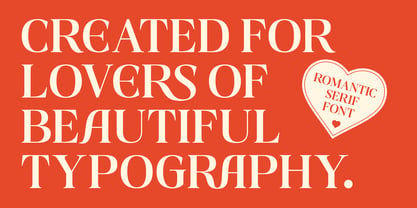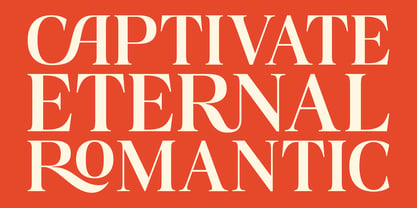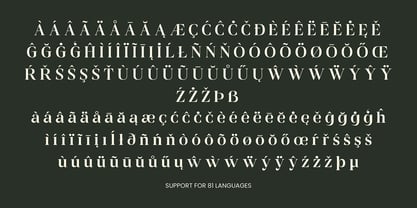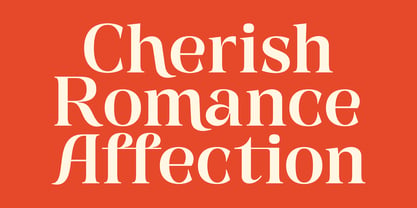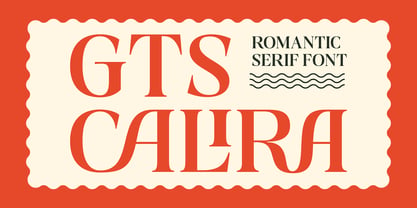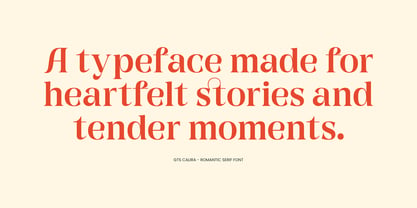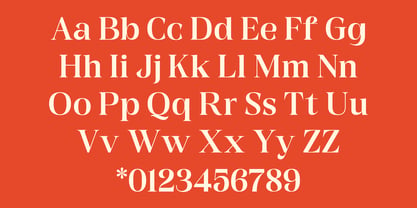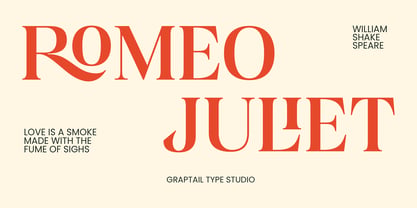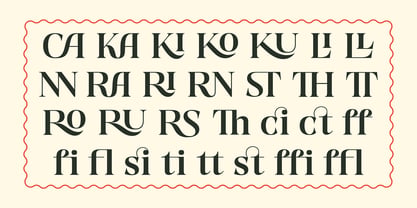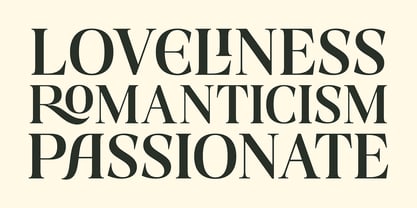
Calira
by Graptail
The Calira Font Family was designed by Teuku Deky Firnanda and published by Graptail. Calira contains 1 styles. More about this family
Calira is a romantic serif typeface that blends classic elegance with a soft, modern expression. Designed with graceful proportions, subtle stroke contrast, and rounded terminals, this font delivers a warm, emotional, and premium feel.
The key highlight of Gts Calira is its 27 uppercase and lowercase ligatures, allowing smoother character connections and more natural typographic flow. These ligatures help create dynamic, custom-looking compositions, making every design feel more expressive and refined.
Designers: Teuku Deky Firnanda
Foundry: Graptail